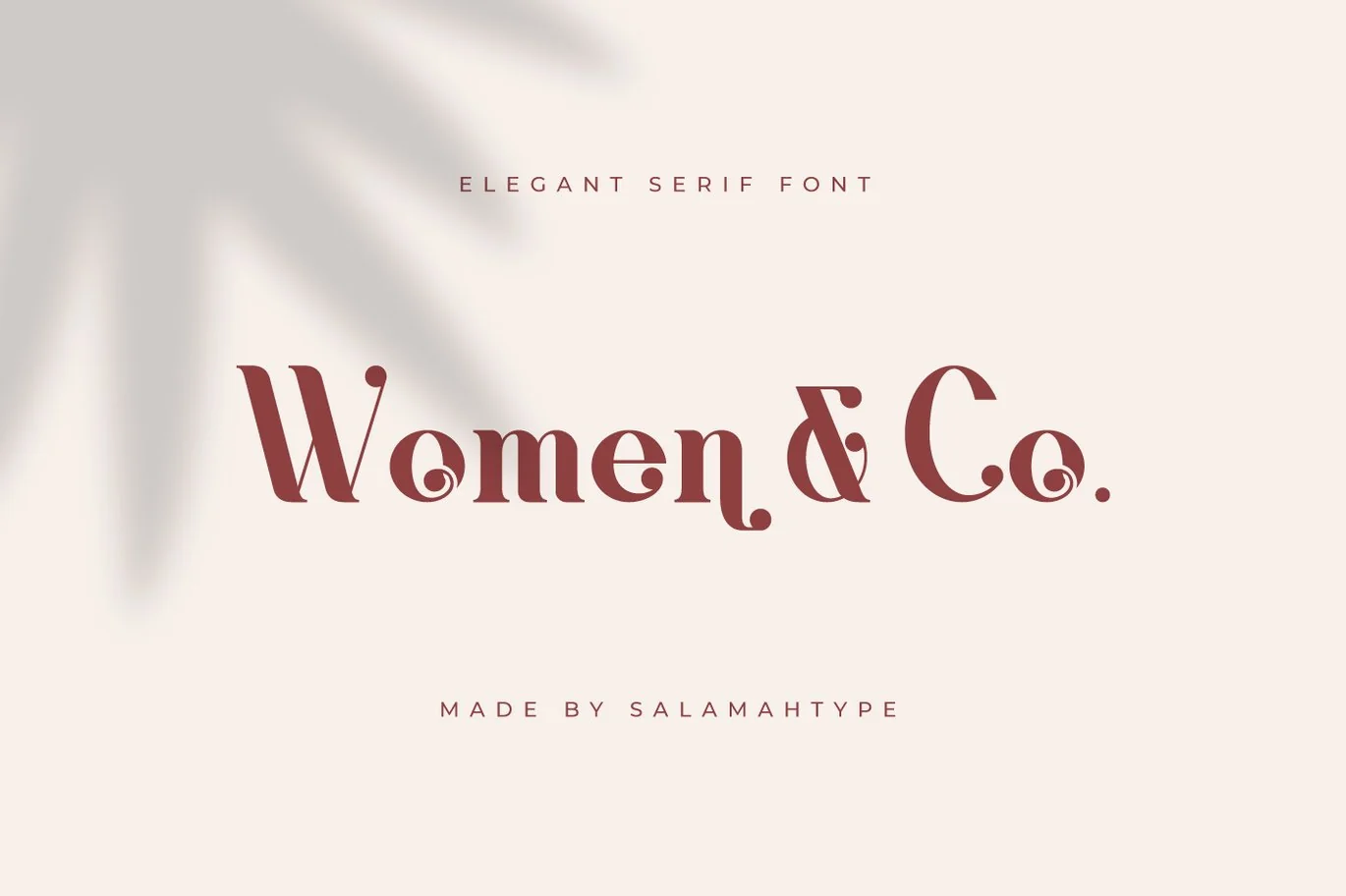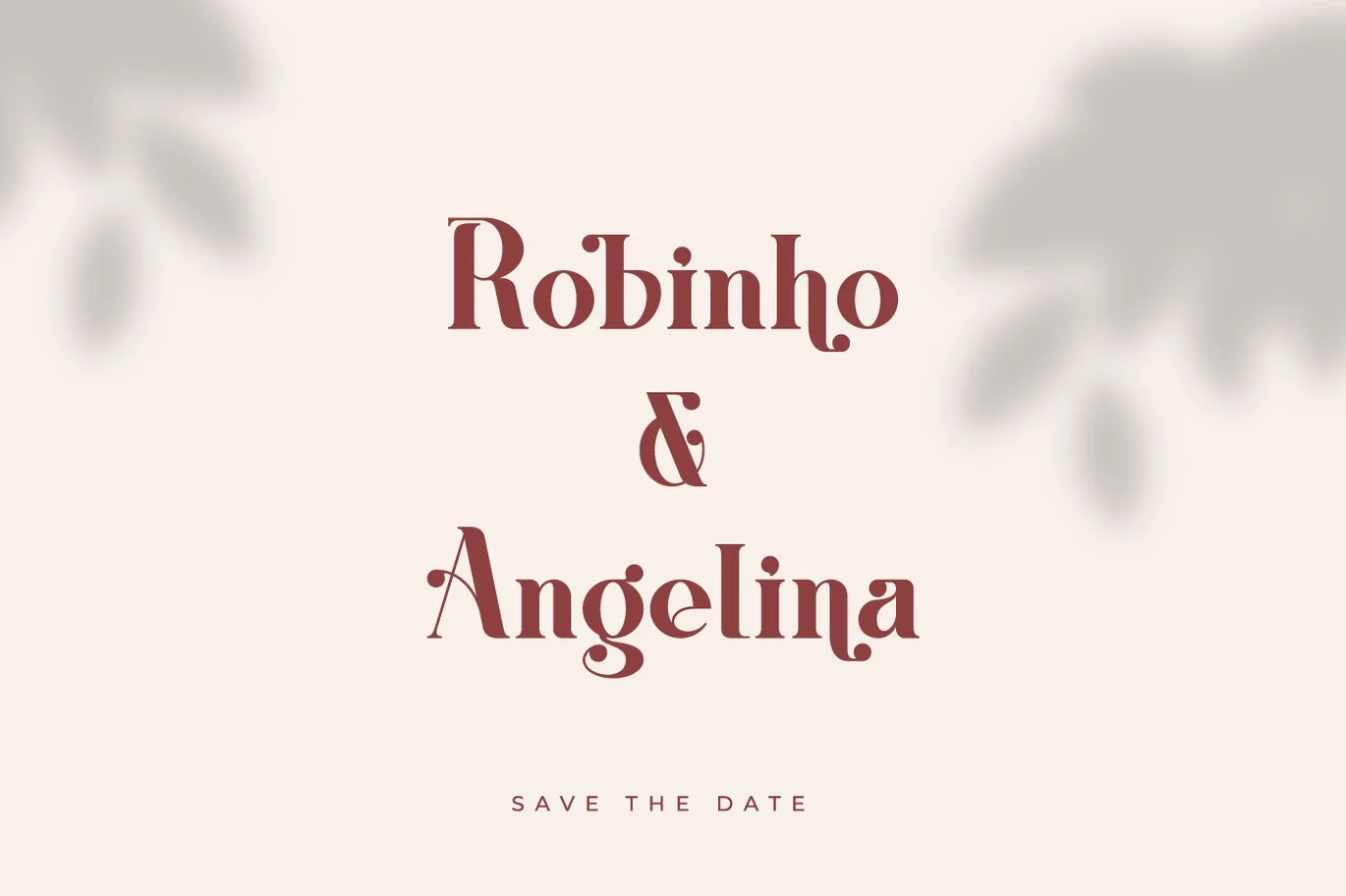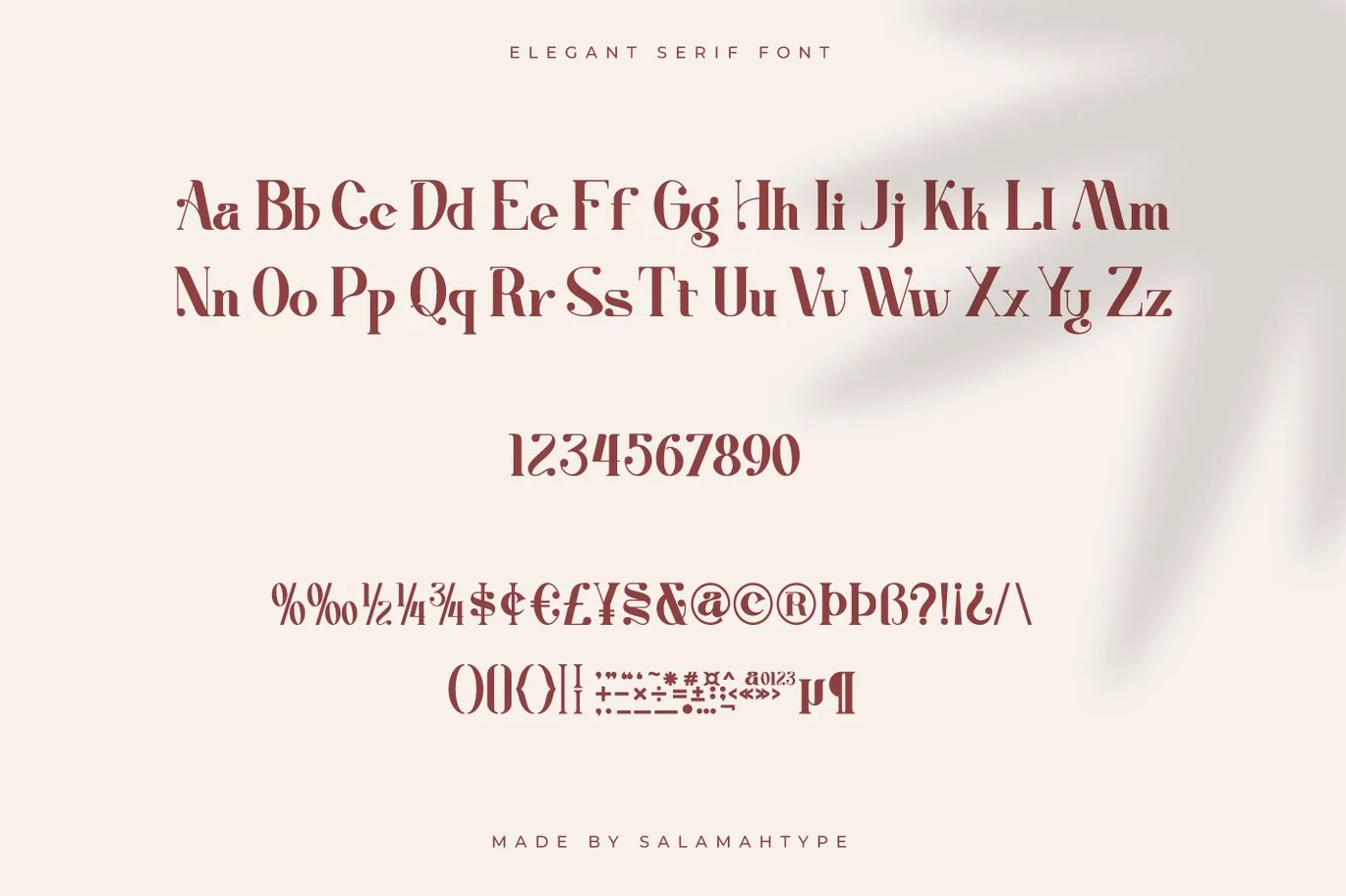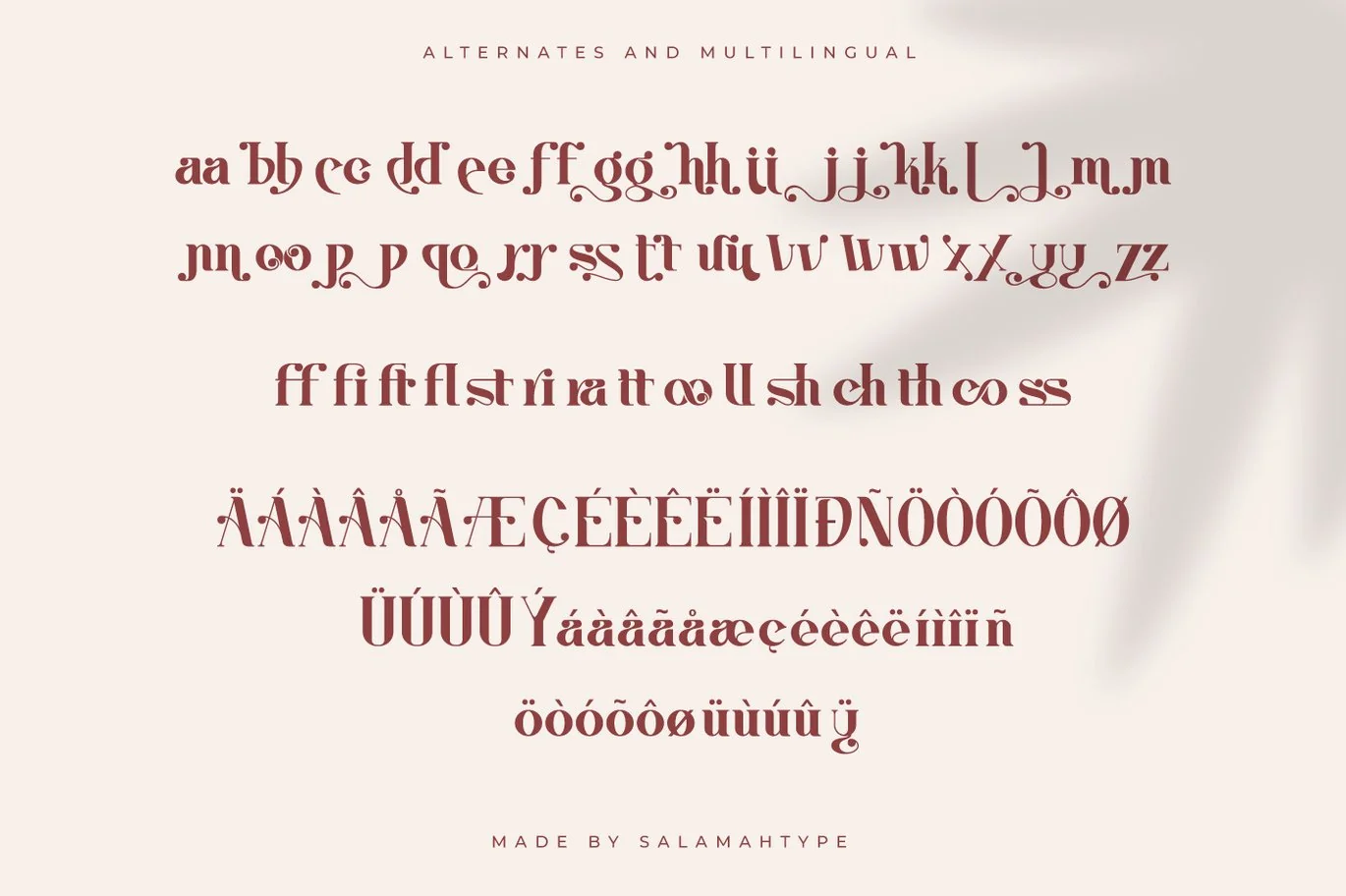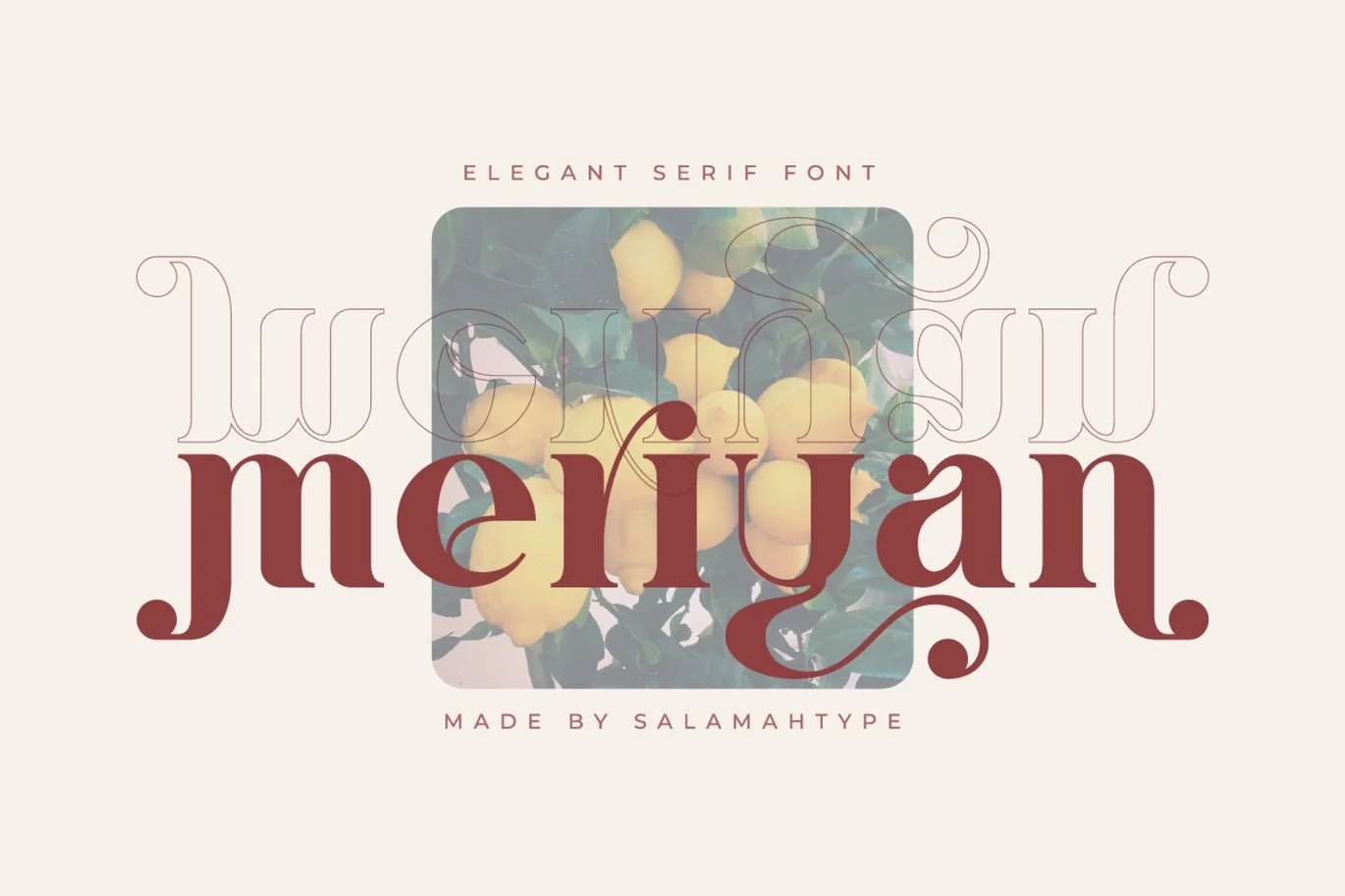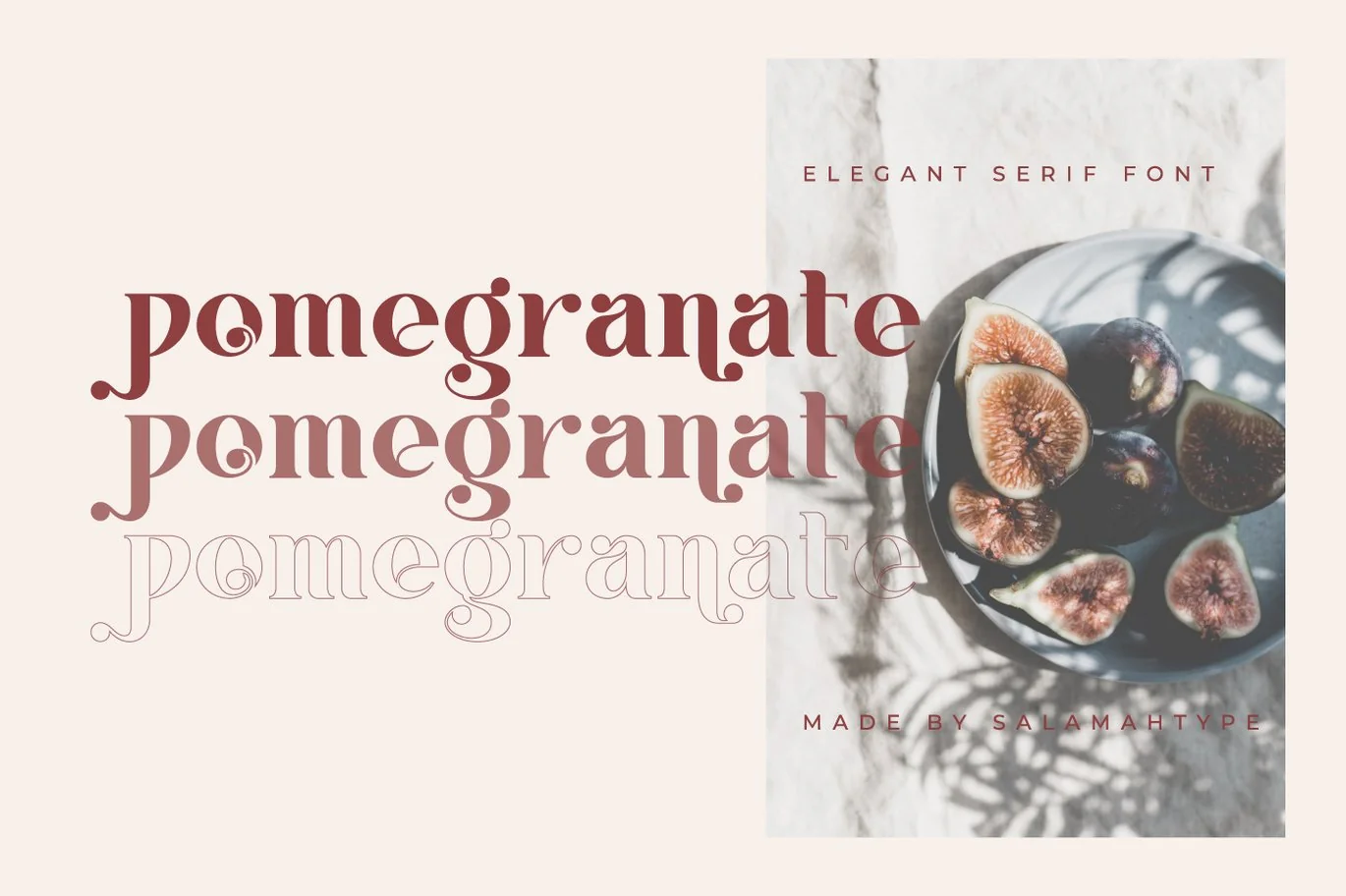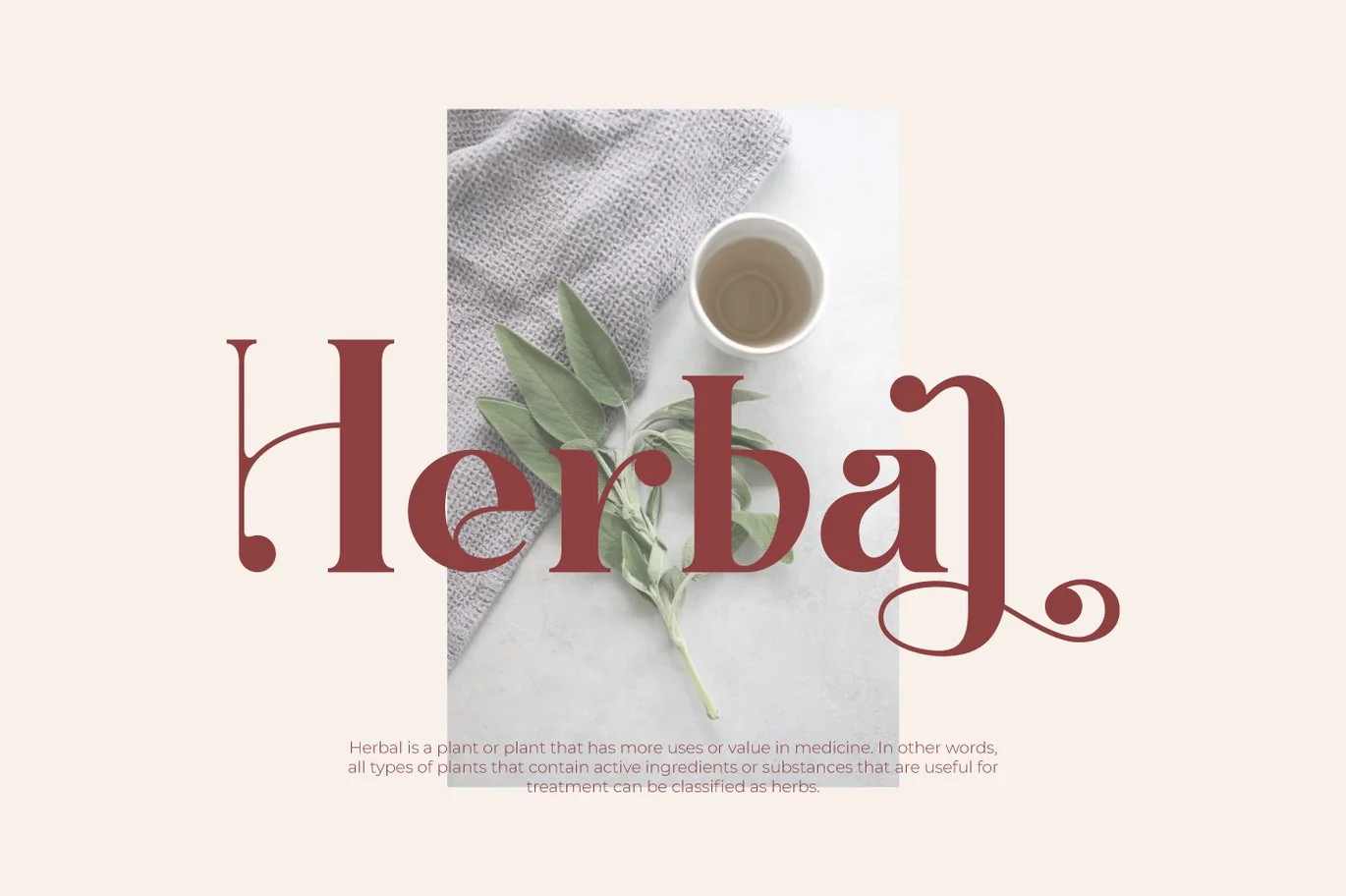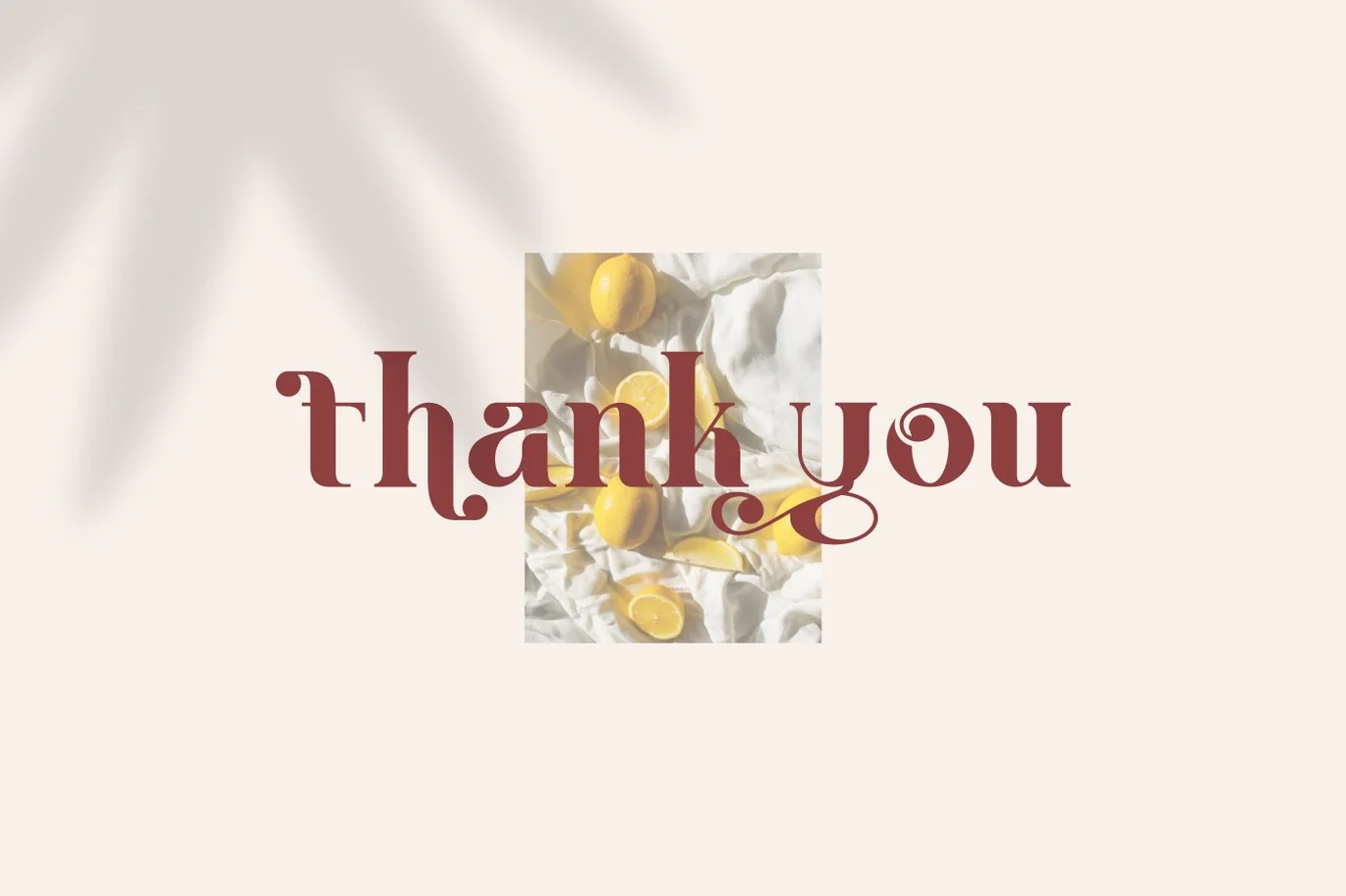
Meriyan – Elegant Font
Hello! Meriyan is an elegant serif font with ligatures and alternates. Meriyan is perfect for your branding projects, wedding invitations, product packaging, magazines, stationery, quotes, logos and much more.
- Uppercase and lowercase
- Punctuation and symbols
- Alternates and ligatures